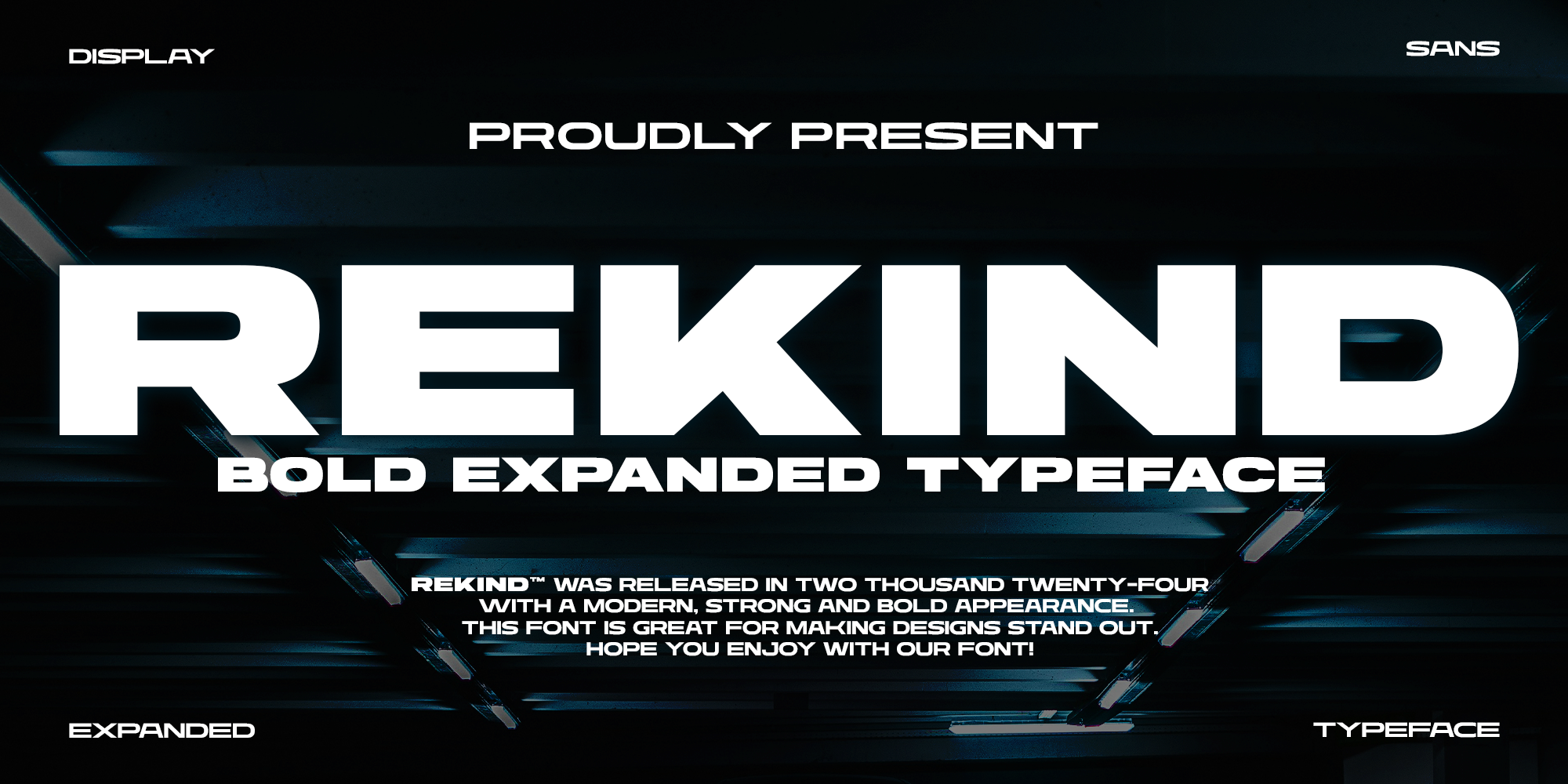
Rekind Expanded Font excels in various design applications including wide-format branding, expanded corporate identities, broad signage projects, spacious web interfaces, generous packaging designs, expansive advertising campaigns, wide headline layouts, and comprehensive brand communications. This expansive typeface adapts broadly to both wide digital platforms and generous print materials, making it perfect for designers seeking expanded presence and generous sophistication in their visual communications.
Rekind Expanded Font generates excitement among design professionals due to its generous character and expanded styling that instantly conveys openness and comprehensive coverage. The font's wide letterforms and spacious proportions create an immediate sense of accessibility and inclusive communication. Its expansive personality makes it particularly appealing for brands wanting to communicate openness, inclusivity, and comprehensive service in their visual identity.
The Rekind Expanded Font family encompasses multiple weights and styles including Regular, Bold, Light, Wide, and Ultra Expanded variations. Each family member maintains generous design principles while offering distinct spacious characteristics. The Light weight provides subtle expanded elegance for refined applications, while the Ultra Expanded version delivers maximum impact for comprehensive headlines and wide brand statements.
Comprehensive designers frequently choose Rekind Expanded Font Free Download for projects requiring both expansive authenticity and inclusive distinction. This typeface demonstrates remarkable effectiveness across service industries including consulting firms, healthcare organizations, educational institutions, and comprehensive service providers. Its expanded character allows organizations to communicate inclusivity while maintaining excellent readability and generous visual appeal that welcomes diverse audiences and creates accessible communication experiences.